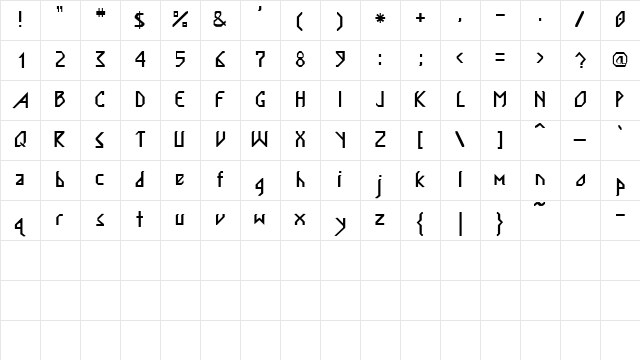
KooKooSSK Regular Free Font
KooKooSSK Regular
Design Context for KooKooSSK
KooKooSSK is a composed and adaptable typeface that performs quietly and consistently across a wide range of design contexts.